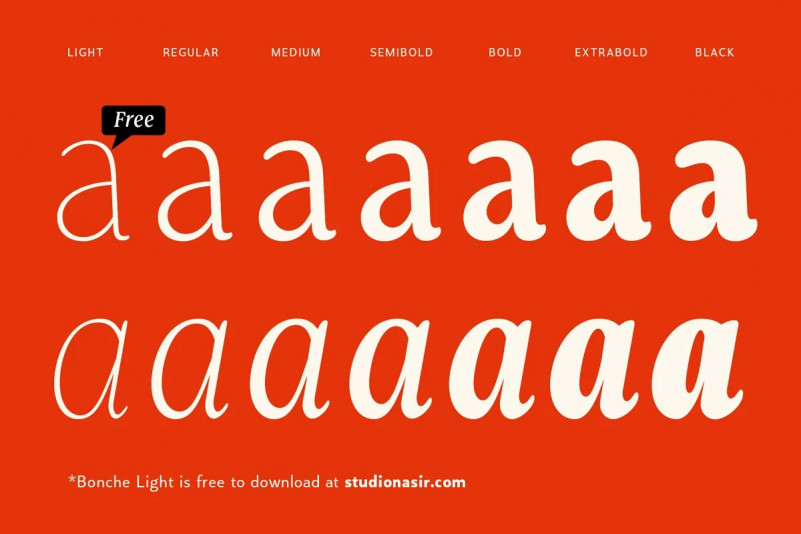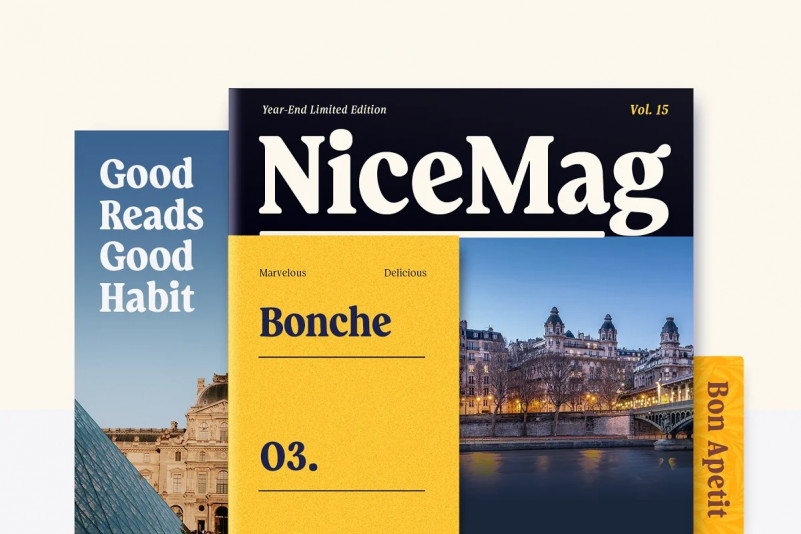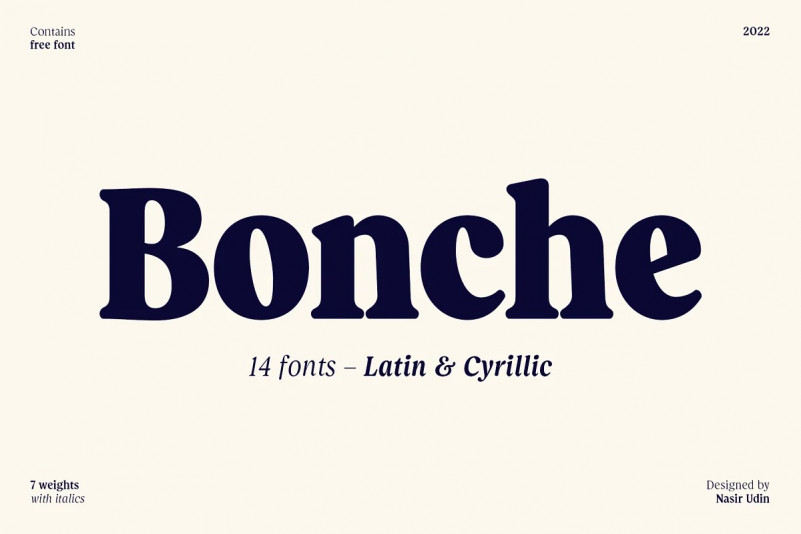
Bonche Font
Introducing Bonche Serif Font is a soft-serif type family of 14 styles in 7 weights with its matching italics.
Inspired by the eccentricity of early 20th century typefaces – such as Belwe, Cooper, Souvenir, and Windsor – Bonche has a bit funky looks but not that fancy. It has a neutral appearance yet not so boring. With its “high x-height” and “medium-contrast stem ratio”, this typeface is easy to get people’s eyes.
The bolder weights offer a typography solution for your food branding, headline, book cover, article titles, or product packaging. The lighter weights can be used for longer texts or paragraphs.
It’s developed to support a wide range of languages. Bonche covers 200+ languages which use Latin-based letters, including the special Polish kreska. It also has an extended Cyrillic charset to cover more Slavic languages, including the customized Bulgarian & Serbian letterforms. Thanks to the OpenType features built-in that make those things possible.
Last but not least, here are some key features Bonche has:
730+ glyphs per font
Standard & Discretionary Ligatures
Extended Latin charset
Customized Polish kreska
Contextual alternate to use “the uppercase German Eszett”
Extended Cyrillic charset (plus Bulgarian & Serbian forms)